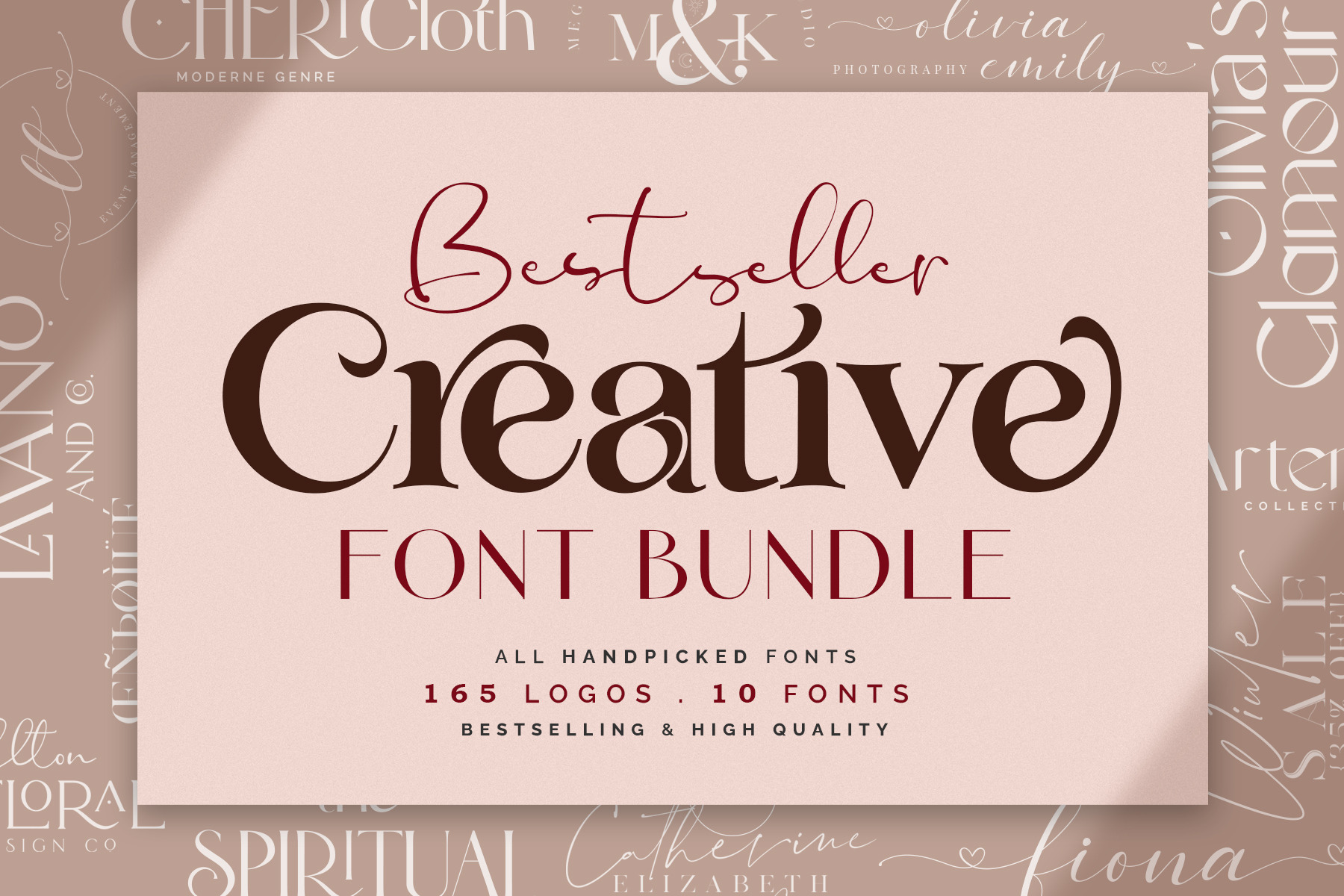
Bestseller Creative Font Bundle 10 Handpicked and Bestselling, with 165 stunning logos ~ On Creative Market, All font packs are perfect for cursive style, chalkboard style, modern and vintage style, feminine style, premium style, rustic, handwriting style branding. The logos and fonts are perfect for Circut, Silhouette vinyl, tattoo, and bullet journal inspiration.
Font Bundle Features:
- Accurate kerning for all serif and sans family
- Amazing ligatures to look natural in script font
- Alternative characters for script lowercase alphabets
- Multilingual Support for all fonts (ÀÁÂÃÄÅÆÇÈÉÊËÌÍÎÏÐÑÒÓÔÕÖØÙÚÛÜÝàáâãäåæçèéêëìíîïðñòóôõöøùúûüýÿ)
What’s Inside?
- All OpenType fonts, Serif, Sans Serif, and Script.
- The bestselling serif font for most robust display branding and advertisement. They hold hands and dance together with split personalities. With font design harmony, you can fill gaps with stunning alternates. They did work with any serif and sans serif. For a quick start with your branding, you will get 25 premade logos. The ligatures are stunning to make beautiful typography.
- Beautiful & stylish font duo with script and serif for branding and display texts. With great stylistic alternates and ligatures, they are the best combo. Just think of your brand personality and add text. They will look stunning! For beautiful type inspiration, you will get 30 premade logos. You will find unique ligatures with both serif and script. You will find both a classy and modern feel with this font duo.
- Best font duo with serif and sans serif for bold and dynamic headings. A unique font of classy serif with beautiful ligatures and stylistic alternates, with modern sans. An elegant, high contrast sans font containing uppercase and lowercase characters to work with refined serif.
- If you are fond of dreamy and magical fonts, then this combo is for you. Each font character is carefully designed with cosmic design elements. With a classy script and magical serif font duo, you can make type magic. Everything is dreamy, playful, and full of charm. Just write your words, and everything will grow up with a dream.
- A very adaptable font with Stunning ligatures, minimalistic and stylistic alternates. A modern font designed in an elegant style for elegant typography. Everything is super simple, easy, clean & professional.
- A classy modern calligraphy font with beautiful swashes and premade branding logos. Words look more naturally finished off if end letters are shaped with a delicate up-curve. With beautiful connection swashes, you can make darling words.
- A stylish premium handwritten font with Trendy Ligatures and Chic Alternatives. If you need a casual and bold script, this would be your best choice. It offers gorgeous typographic harmony for a variety of design projects. Contains upper & lowercase characters, numerals, and an extensive range of punctuation.